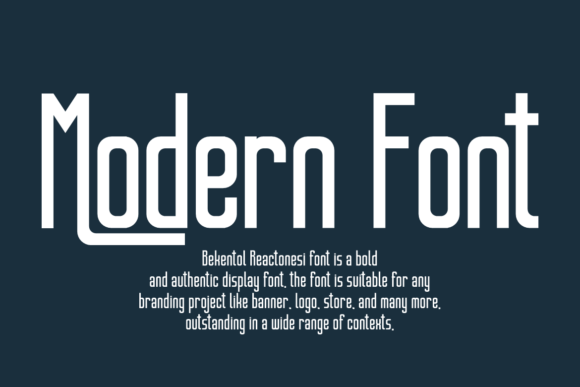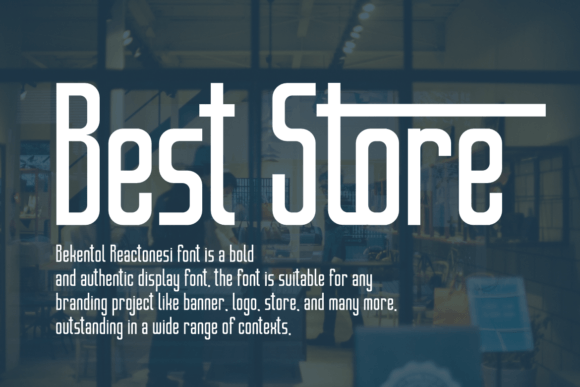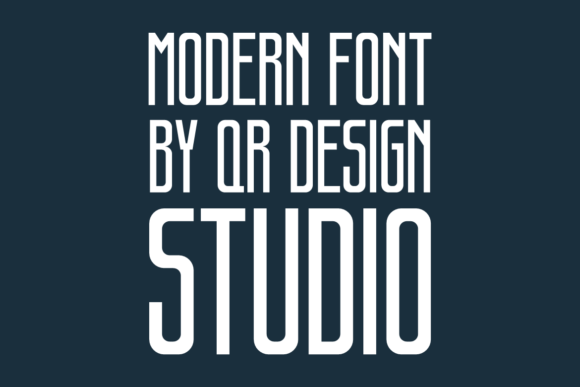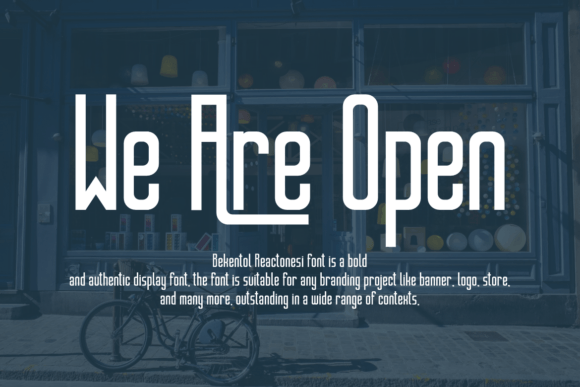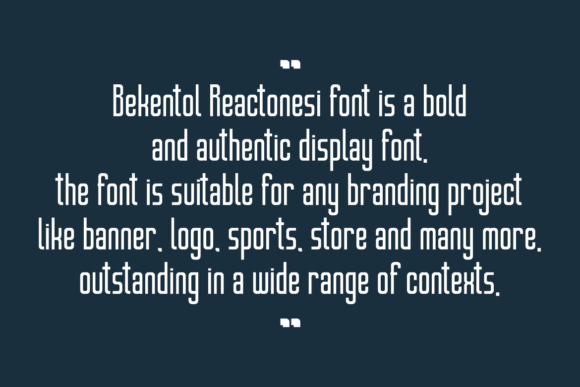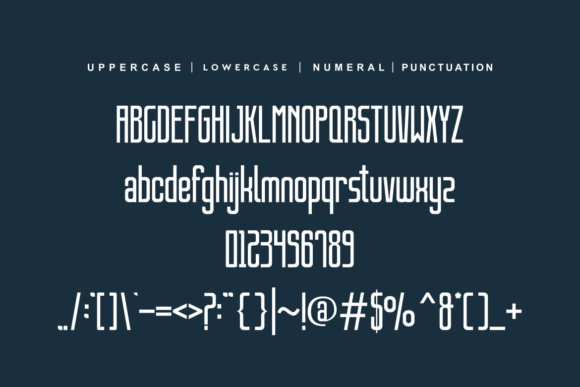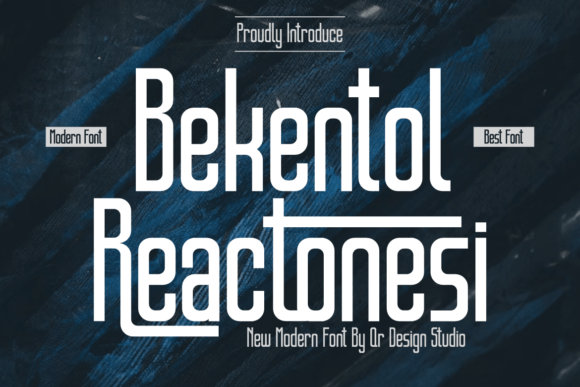
Bekentol Reactonesi Font: Elevate Your Designs with a Cool and Modern Sans Serif
Are you tired of using the same old fonts in your designs? Look no further than Bekentol Reactonesi, a fresh and modern sans serif font that’s sure to take your projects to the next level. With its clean lines, sleek appearance, and versatility, Bekentol Reactonesi is the perfect addition to any designer’s toolkit.
What Makes Bekentol Reactonesi Stand Out?
Bekentol Reactonesi is a cool and modern sans serif font that’s designed to make a statement. Its unique characteristics and features set it apart from other fonts, making it an excellent choice for designers and crafters looking to add a touch of sophistication to their work.
- Clean and Simple Design: Bekentol Reactonesi boasts a clean and simple design that’s perfect for creating modern and elegant designs.
- Versatility: This font is highly versatile and can be used for a wide range of projects, from branding and advertising to packaging and digital media.
- Excellent Legibility: Bekentol Reactonesi is designed to be highly legible, making it perfect for use in body text, headings, and titles.
- Unique Character Set: This font comes with a unique character set that includes a range of letters, numbers, and symbols, ensuring that you have everything you need to create stunning designs.
Why Choose Bekentol Reactonesi?
So, why should you choose Bekentol Reactonesi for your next project? Here are just a few reasons why this font stands out from the rest:
- Modern and Fresh Look: Bekentol Reactonesi has a modern and fresh look that’s sure to grab attention and leave a lasting impression.
- Easy to Read: This font is designed to be easy to read, making it perfect for use in digital media, such as websites, blogs, and social media.
How to Use Bekentol Reactonesi in Your Designs
Using Bekentol Reactonesi in your designs is easy. Here are a few tips to get you started:
- Pair it with Other Fonts: Bekentol Reactonesi pairs well with other fonts, making it easy to create stunning font combinations.
- Use it for Headings and Titles: This font is perfect for use in headings and titles, where its clean lines and sleek appearance can really shine.
- Experiment with Different Sizes and Colors: Don’t be afraid to experiment with different sizes and colors to find the perfect look for your design.
In conclusion, Bekentol Reactonesi is a cool and modern sans serif font that’s sure to elevate your designs to the next level. With its clean lines, sleek appearance, and versatility, this font is perfect for designers and crafters looking to add a touch of sophistication to their work. So why wait? Add Bekentol Reactonesi to your projects today and experience the difference for yourself!
Bekentol Reactonesi is a cool and modern sans serif font. Add it confidently to your projects and you will love the results!